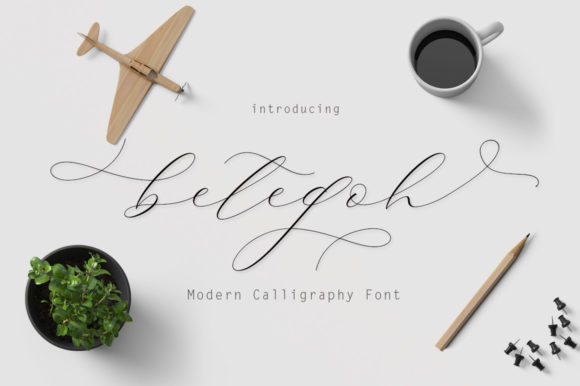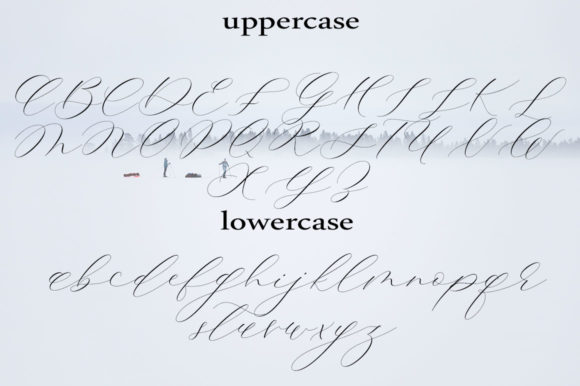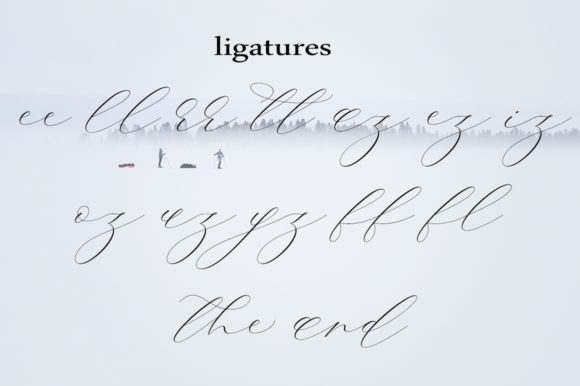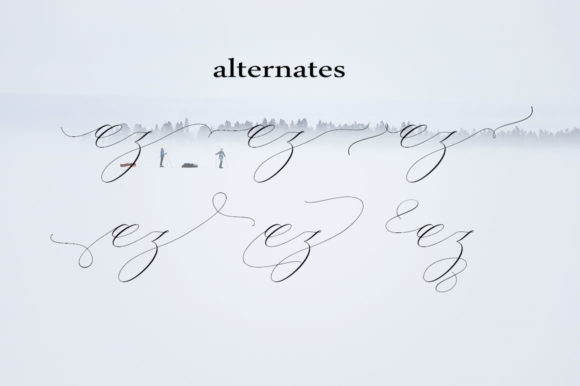
About Betegoh Font
The Betegoh is an elegant script font. It comes in a thin and italic style, and was made very slowly to get a neat result with an elegant impression.
It’s modern, yet luxurious style is perfect for logo’s, branding projects, homeware designs, product packaging, mugs, quotes, posters, shopping bags, logo’s, t-shirts, book covers, name cards, invitation cards, greeting cards, and much more!